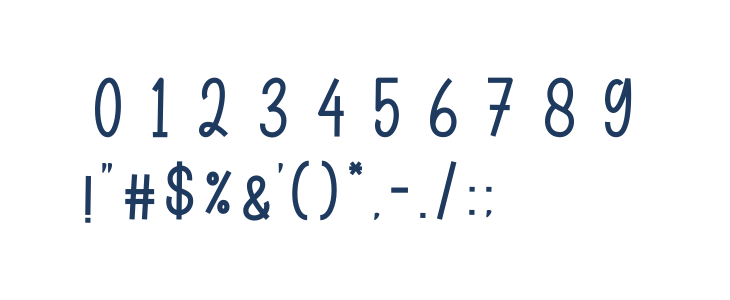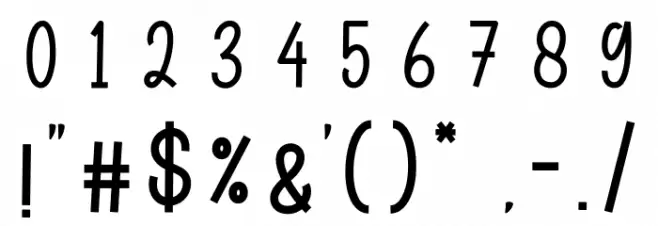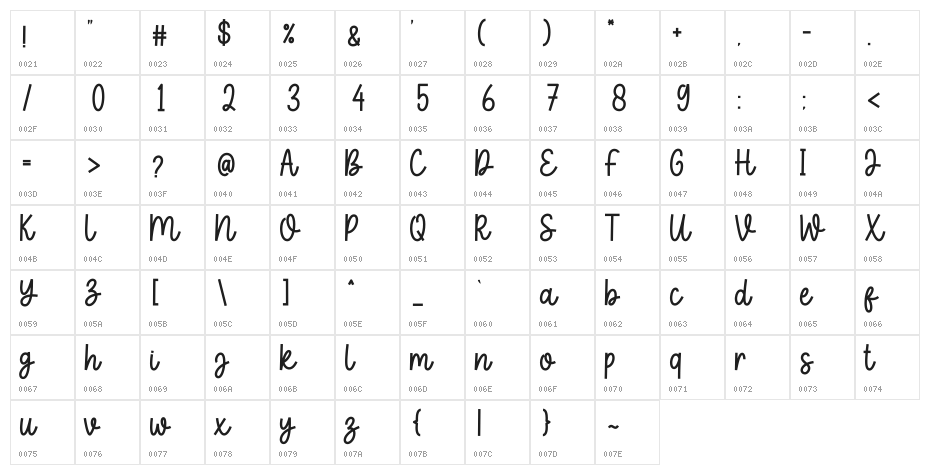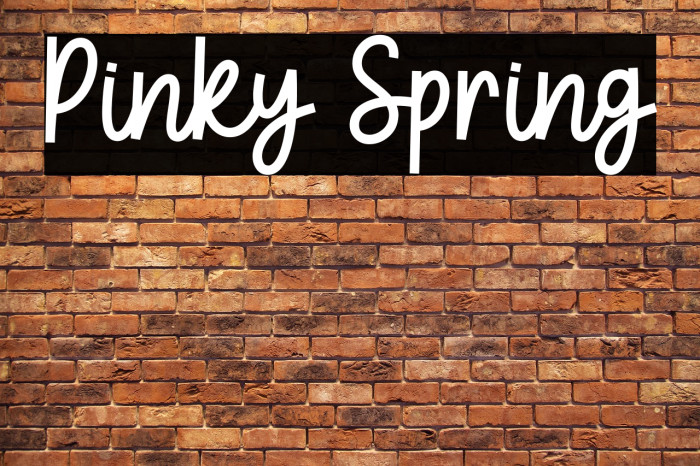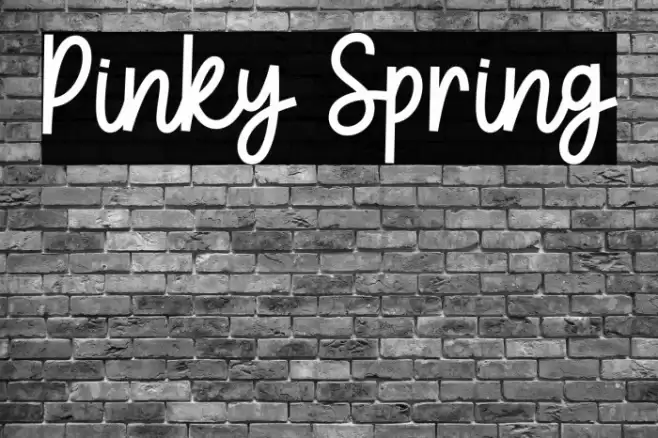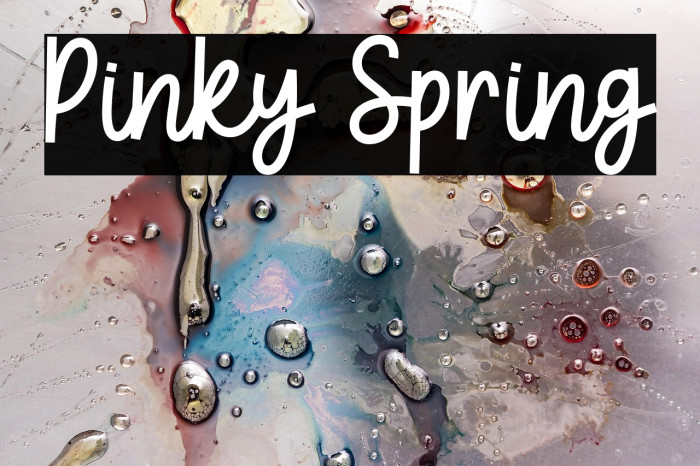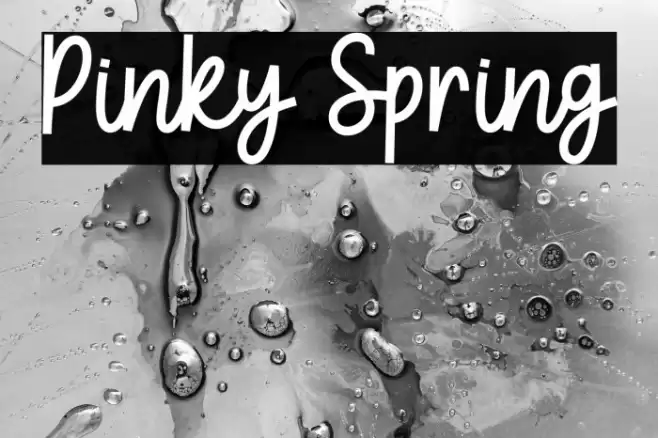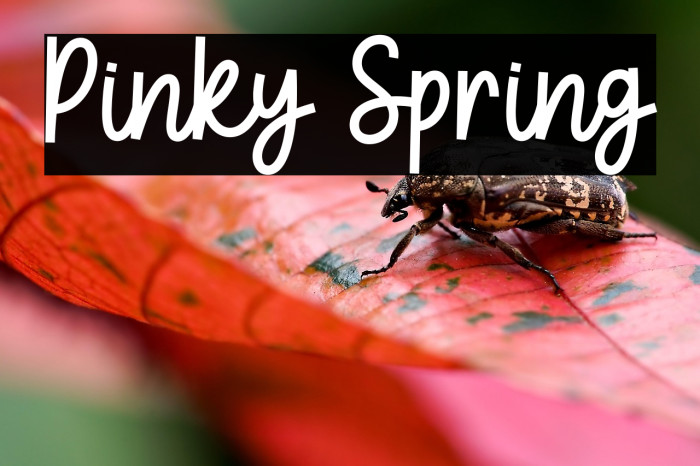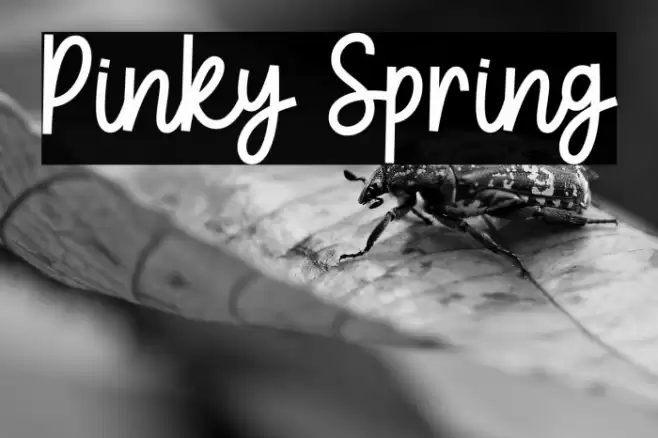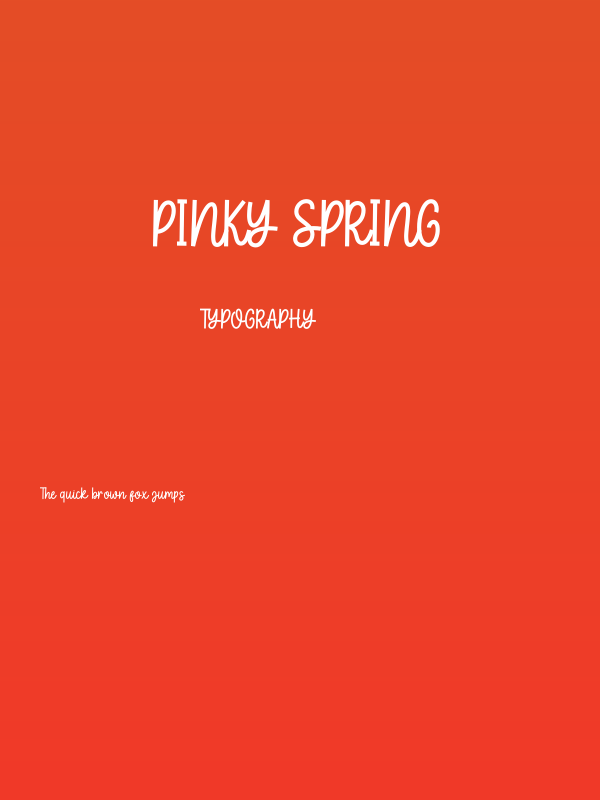
Pinky Spring Font
Pinky Spring Description
This font features a playful and casual script style with a handwritten appearance. The uppercase letters are bold and slightly slanted, giving a dynamic and lively feel. The lowercase letters maintain a consistent flow with smooth curves and loops, enhancing the handwritten aesthetic. The numbers are clear and legible, complementing the overall style. Special characters are well-integrated, maintaining the playful and informal tone. This font is perfect for projects that require a personal touch, such as greeting cards, invitations, and creative branding.
Overall StyleCasual, Playful
Use CaseLogos, Invitations, Greeting Cards
Proposed ProjectsIdeal for greeting cards, invitations, creative branding, and personal projects.